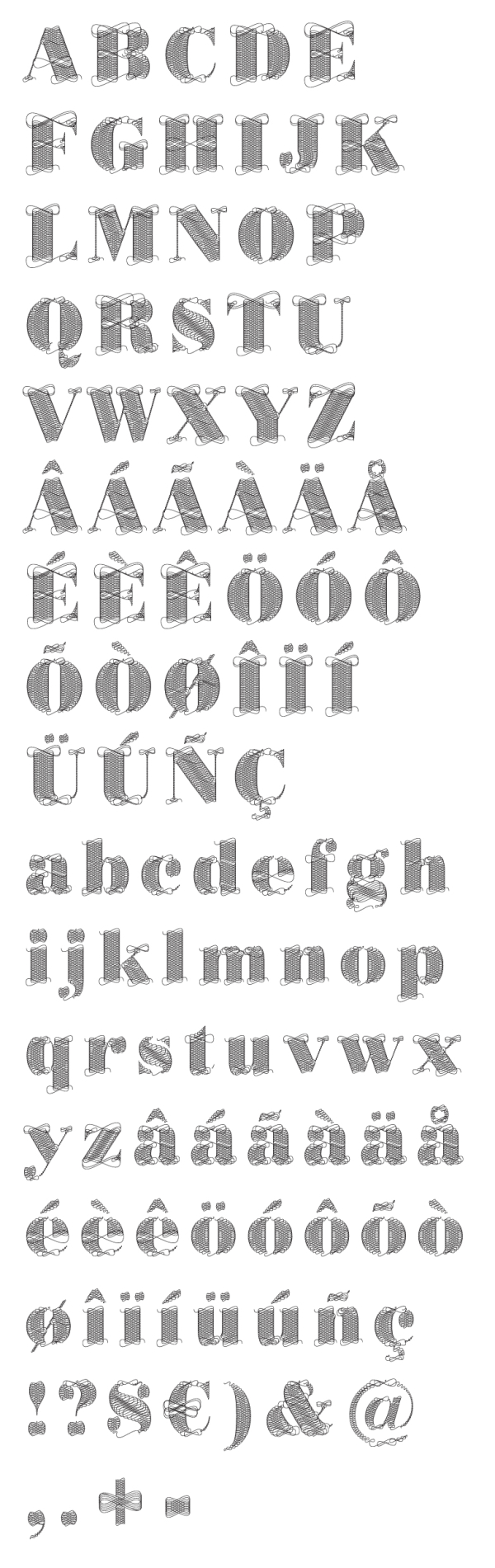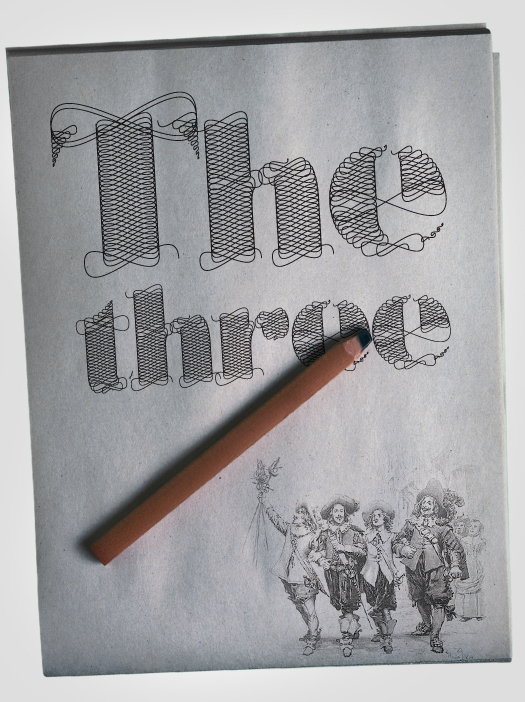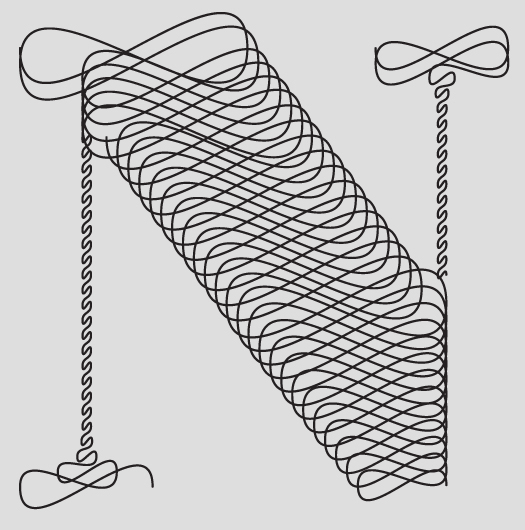
Vectorillo
This sassy and classy Vectorillo font is feminine, with all these curls and twirls, yet quite usable. Serif styled, and havng some elements from the past, it could be used to describe some old movie scenes or literature related facts and stories.